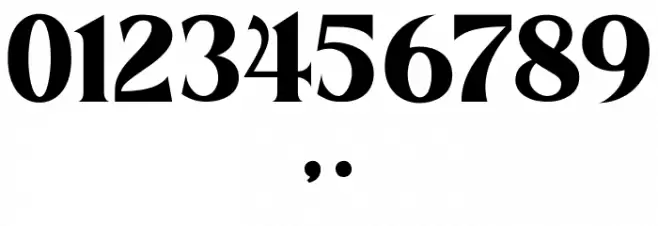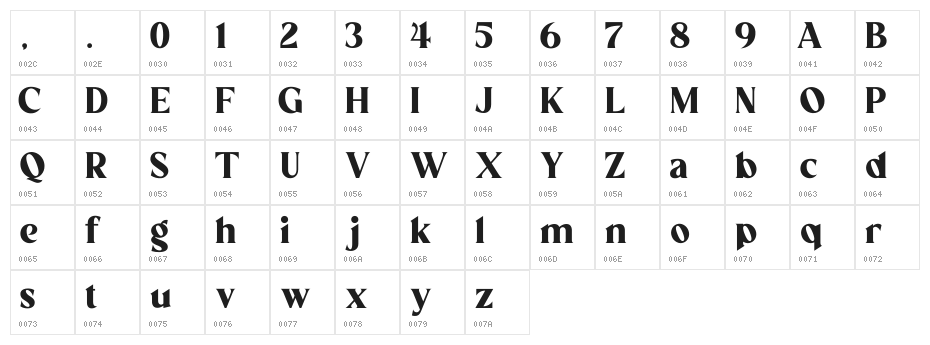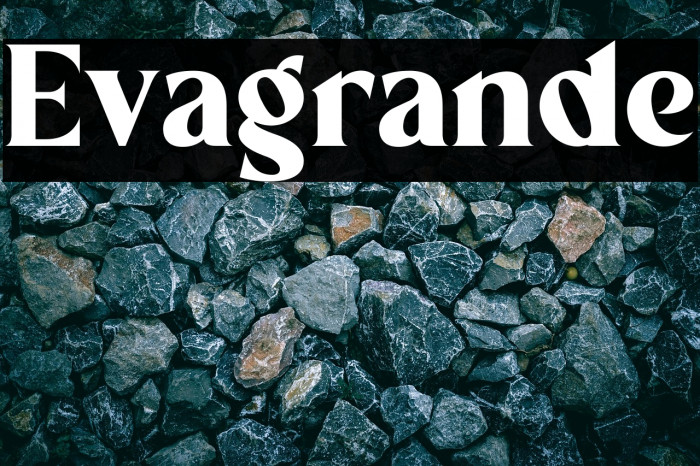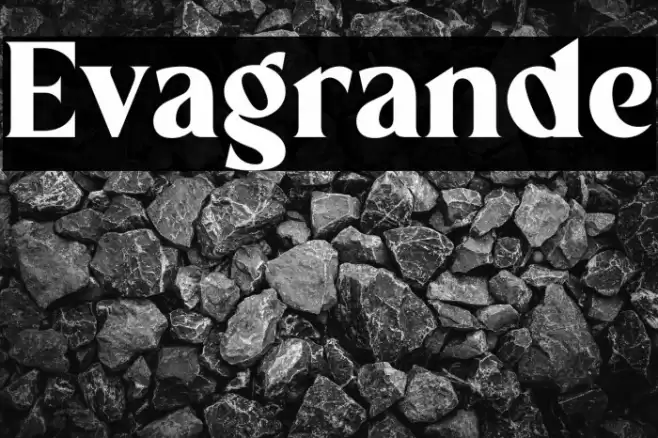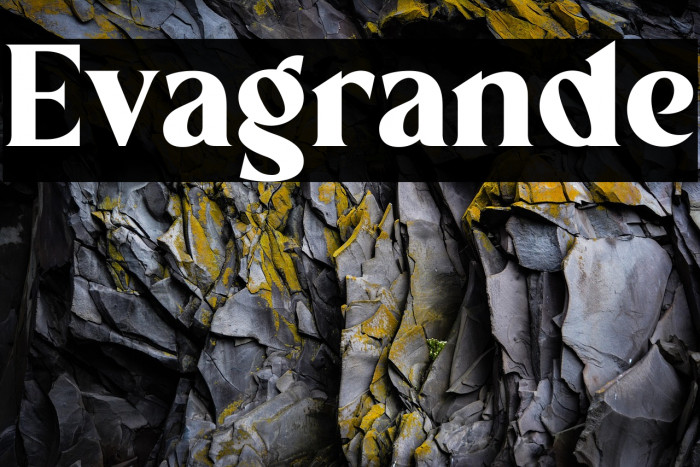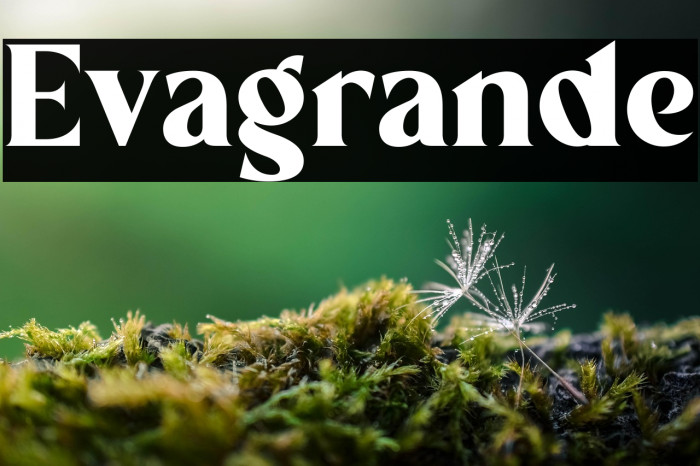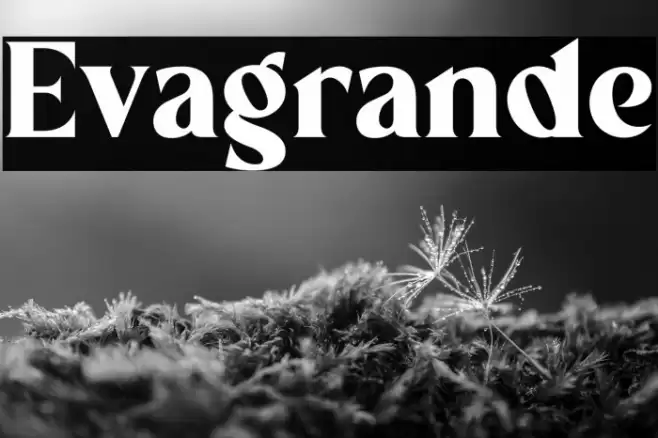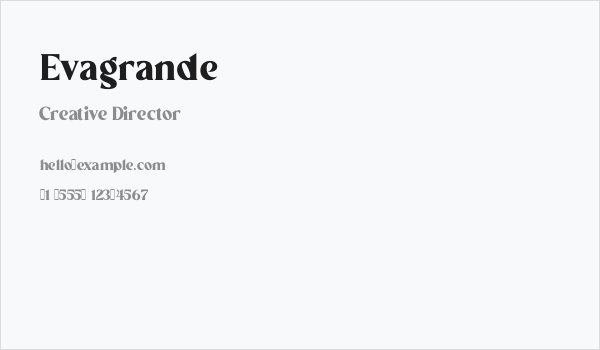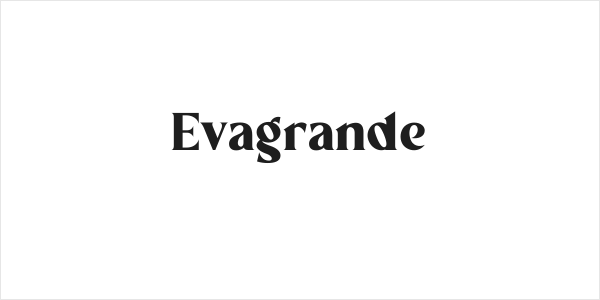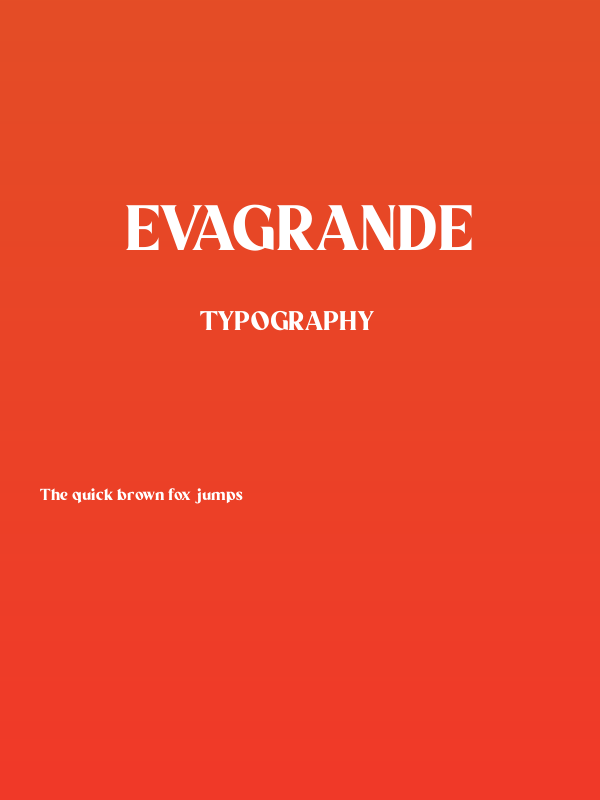
Evagrande Font
Evagrande Description
This font features a bold and dramatic style with high contrast between thick and thin strokes, giving it a strong and impactful presence. The serifs are pronounced and sharp, adding a touch of elegance and sophistication. The uppercase letters are particularly striking, with a commanding presence that makes them ideal for headlines and titles. The lowercase letters maintain the same boldness, ensuring consistency throughout the text. The numerals are equally bold, making them stand out clearly. Overall, this font combines traditional serif elements with a modern twist, making it versatile for various design applications.